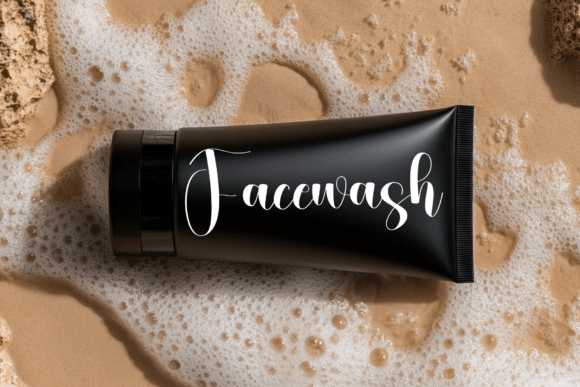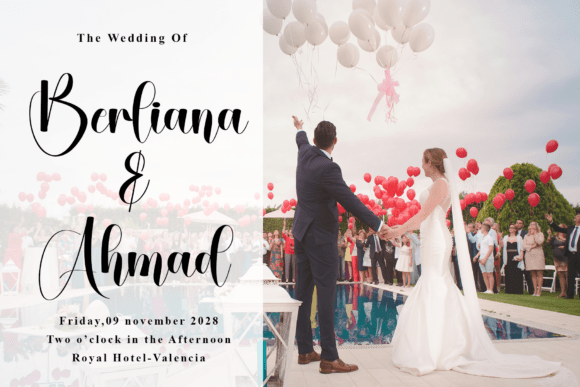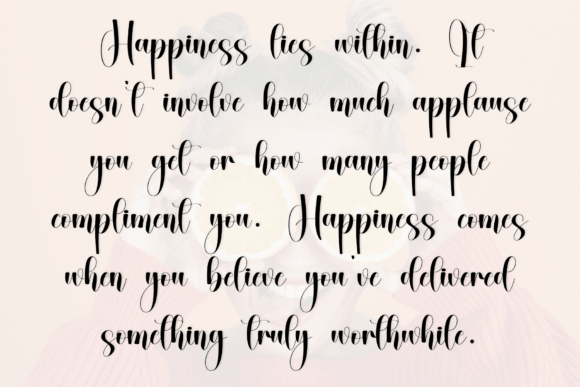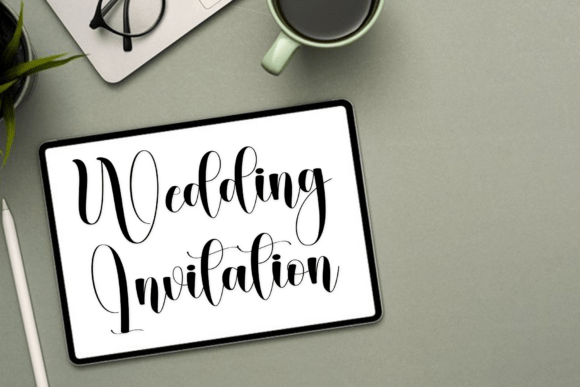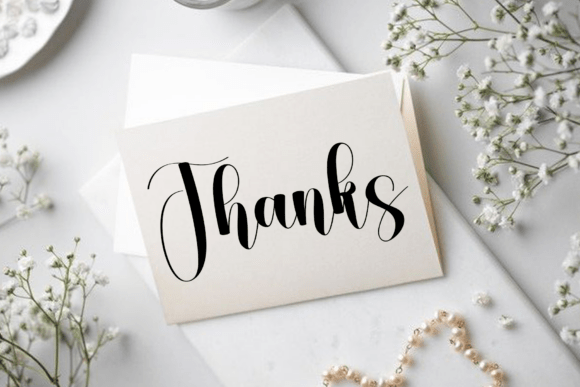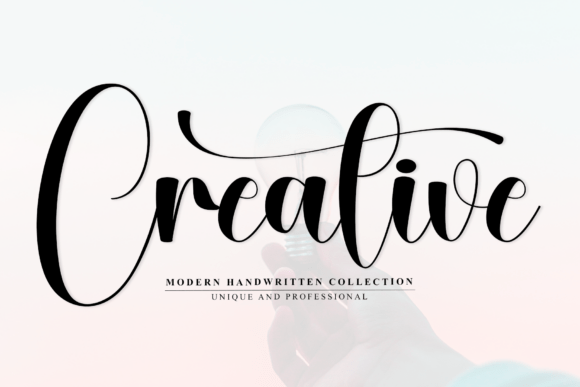
Unleash Your Creativity with Creative Font: The Ultimate Guide
Are you a designer, crafter, or creative looking for a font that embodies artistic flair and contemporary elegance? Look no further than Creative Font, a stylish script font that is taking the design world by storm. In this comprehensive guide, we’ll dive into the world of Creative Font, exploring its features, benefits, and uses, as well as provide tips and inspiration for incorporating it into your designs.
What is Creative Font?
Creative Font is a stunning script font that captures the essence of hand-painted calligraphy with a modern twist. Its fluid brush strokes, dynamic curves, and expressive letterforms make it a standout in the world of typography. With its natural flow and vibrant character, this font delivers both visual impact and versatility, making it perfect for a wide range of design applications.
Key Features of Creative Font
- Fluid Brush Strokes: Creative Font features fluid brush strokes that give it a hand-painted, organic feel.
- Dynamic Curves: The font’s dynamic curves add a sense of movement and energy to your designs.
- Expressive Letterforms: Each letterform is carefully crafted to convey a sense of elegance and sophistication.
- Modern Twist: Creative Font brings a modern twist to traditional hand-painted calligraphy, making it perfect for contemporary designs.
Uses for Creative Font
Creative Font is an incredibly versatile font that can be used in a wide range of design applications, including:
- Logos: Add a creative and sophisticated touch to your brand’s logo with Creative Font.
- Invitations: Make your invitations stand out with the font’s elegant and artistic flair.
- Packaging: Use Creative Font to add a touch of luxury and sophistication to your product packaging.
- Social Media Graphics: Elevate your social media graphics with the font’s modern and artistic vibe.
Benefits of Using Creative Font
So why choose Creative Font for your designs? Here are just a few benefits:
- Visual Impact: The font’s fluid brush strokes and dynamic curves make it a standout in any design.
- Versatility: Creative Font can be used in a wide range of design applications, from logos to social media graphics.
- Elegance: The font’s elegant and sophisticated vibe makes it perfect for designs that require a touch of luxury.
- Creativity: With Creative Font, you can add a creative and artistic touch to your designs.
Tips for Using Creative Font
Here are a few tips for getting the most out of Creative Font:
- Experiment with Colors: Try pairing Creative Font with different colors to add depth and interest to your designs.
- Play with Sizes: Experiment with different font sizes to create visual hierarchy and emphasis in your designs.
- Add Texture: Consider adding texture to your designs to give them a more organic, hand-painted feel.
- Mix and Match: Don’t be afraid to mix and match Creative Font with other fonts to create a unique and visually interesting design.
Inspiration and Examples
Need some inspiration for using Creative Font? Here are a few examples of designs that showcase the font’s versatility and elegance:
- Wedding Invitations: Use Creative Font to create beautiful and elegant wedding invitations that set the tone for a sophisticated and stylish wedding.
- Brand Logos: See how Creative Font can be used to create a unique and memorable brand logo that stands out from the crowd.
- Social Media Graphics: Check out how Creative Font can be used to create eye-catching and engaging social media graphics that drive engagement and conversions.
With its fluid brush strokes, dynamic curves, and expressive letterforms, Creative Font is the perfect choice for designers and crafters looking to add a creative and sophisticated touch to their designs. Whether you’re creating logos, invitations, packaging, or social media graphics, this font delivers both visual impact and versatility. So why wait? Download Creative Font today and unleash your creativity!